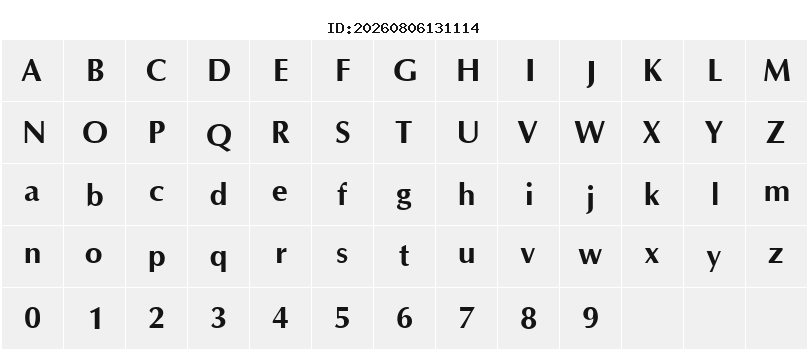
About Optane.ttf
Optane.ttf is a modern, elegant sans-serif font designed for ultimate readability and visual harmony. Perfect for branding, headlines, web design, and print materials.